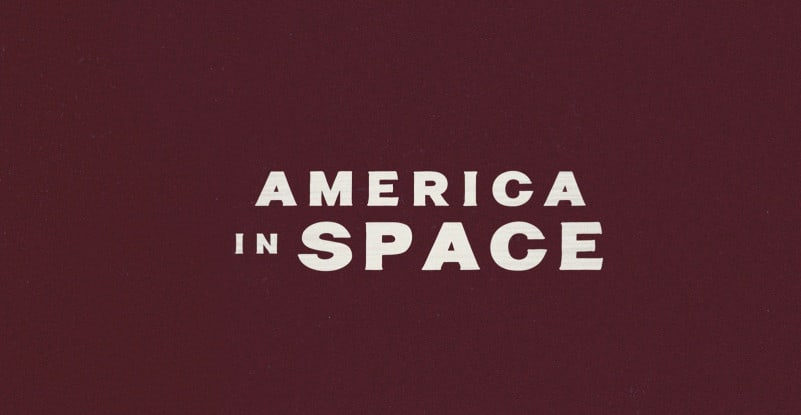
Tuff Stuff Serif Font
Tuff Stuff Serif Font is a versatile outdoor inspired serif typeface. Made with love and joy. It’s designed and shared by blkbktyp. Inspired from everything in between the great outdoors in the woods to out on the water, the multilingual font emerged to bring your project to the next level and give it a taste of old school wilderness.